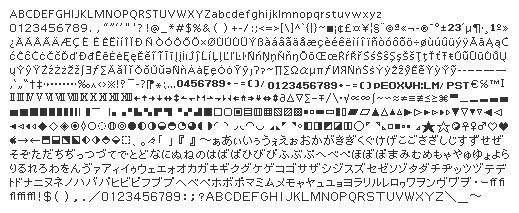
Font name: | Reactor7 |
Author: | Caveras |
Note by Caveras | |
Reactor7 is a proportional sans-serif pixel font recreation based on the original main text font appearing in the Sony PlayStation version of the video game Final Fantasy VII, developed and released by Squaresoft in 1997. The character set of this font was greatly expanded with the complete hiragana and katakana sets from the original Japanese version, countless additional special characters, menu numbers, diacritic variants, unique glyphs and the like, each one of them designed to match the spirit and style of the original font design. To recreate the original in-game appearance of this font, I recommend to choose font sizes that are multiples of 16pt and avoid any anti-aliasing or other font smoothing methods. Features: • 818 characters total • Proportional sans-serif display typeface • Complete Japanese hiragana and katakana alphabets • Menu numbers and game-specific characters • Countless additional special characters, diacritic variants, etc. Please contact me for any commercial use of my fonts. Copyright © 2015 Caveras. All rights reserved. |